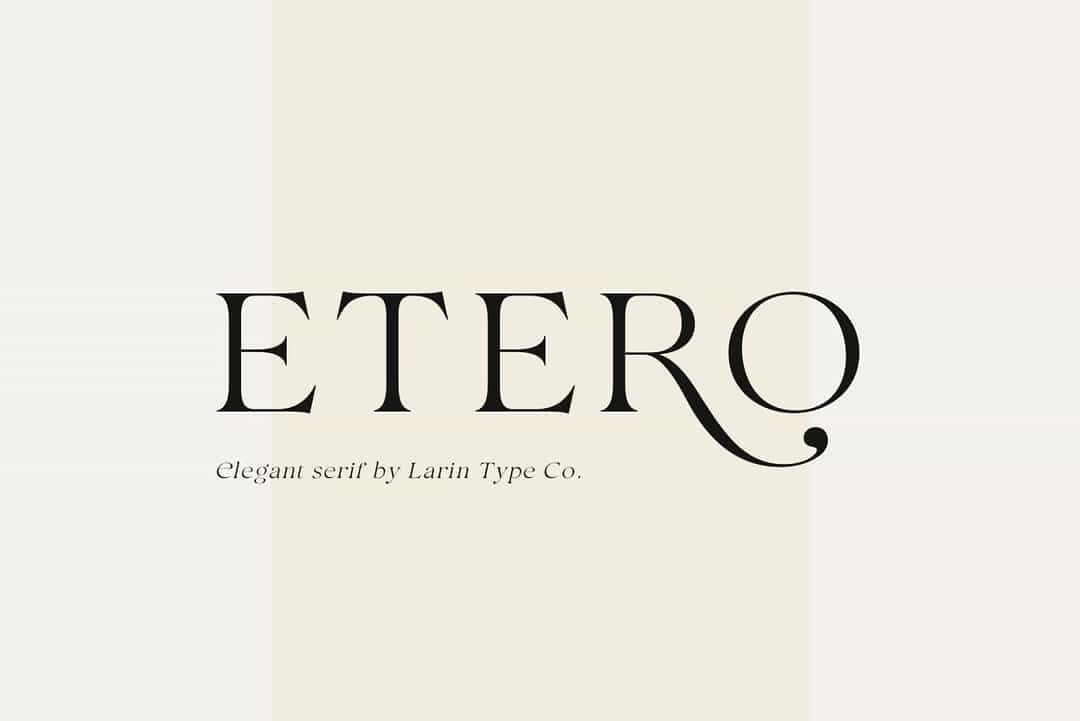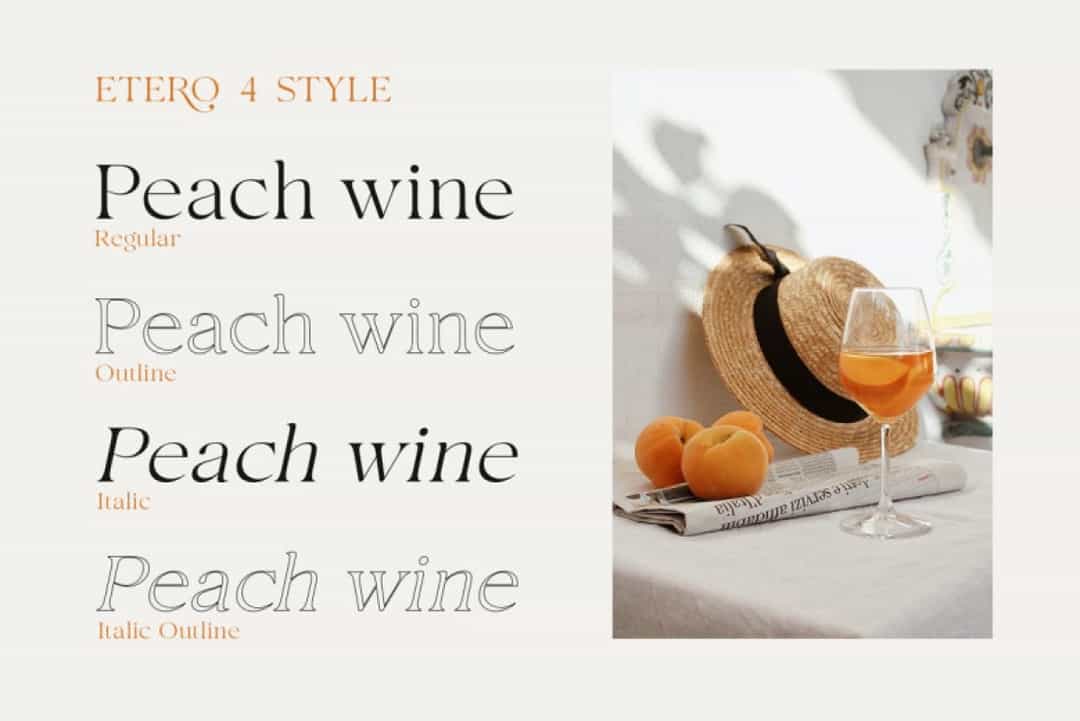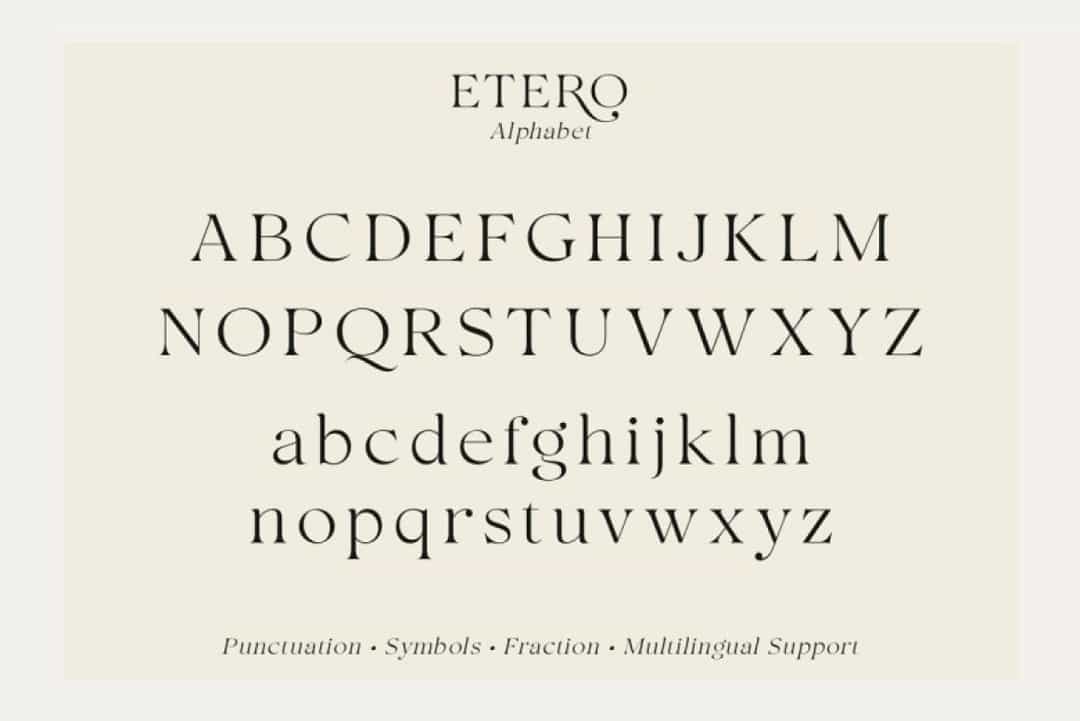
Etero can be described as an elegant and contemporary serif font featuring four types: regular outline, italic and outline. With its lightweight weight and stunning look when used for branding, logos or wedding invitations. Etero also makes great packaging design options, business card titles or titles on wedding invite packaging or invitation arrangements as well as text documents; making this font easily readable and recognisable for readers of any age.